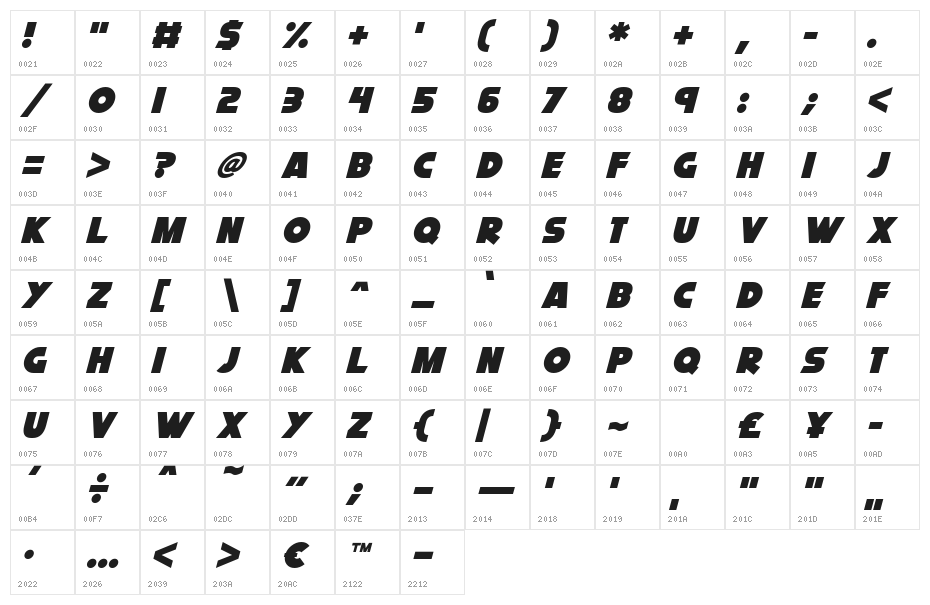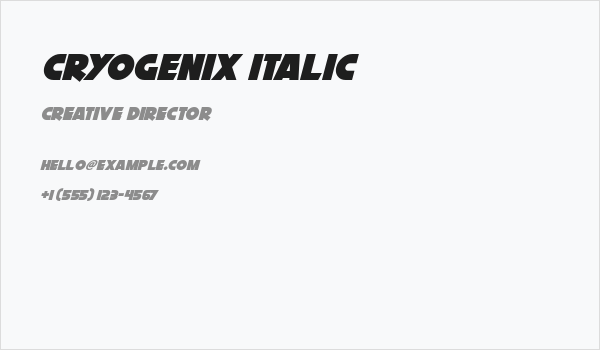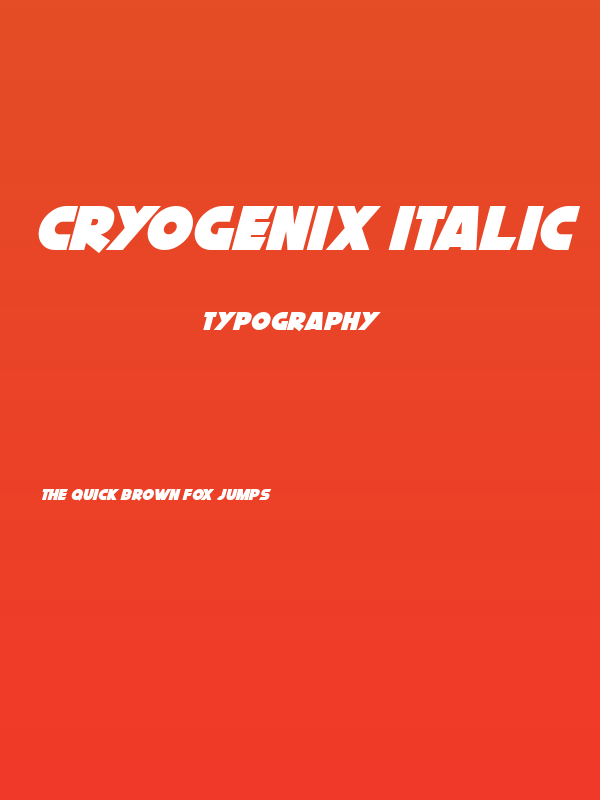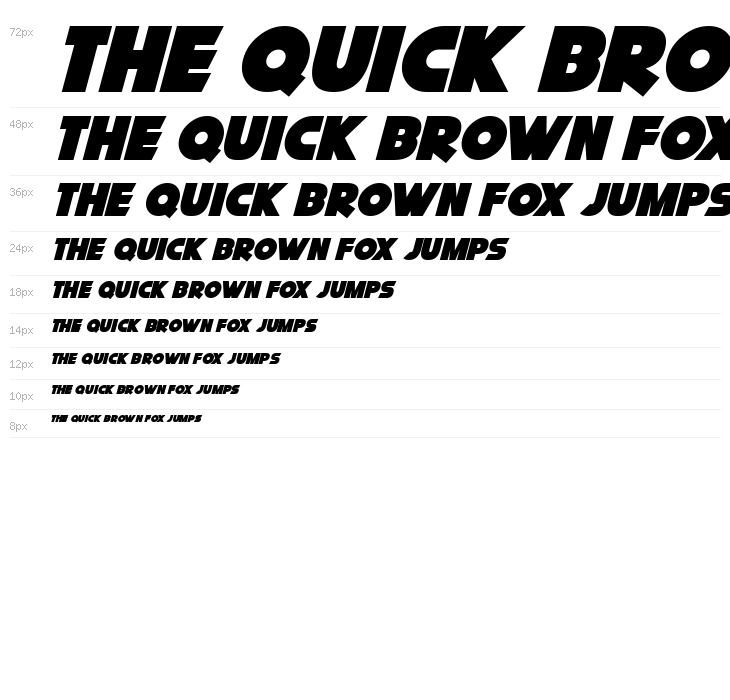
Cryogenix Italic Font
Cryogenix Italic Description
This font features a bold and dynamic style with a strong italic slant, giving it a sense of motion and energy. The characters are wide and robust, with a futuristic and modern aesthetic. The strokes are thick and consistent, providing a high contrast that enhances readability while maintaining a unique visual appeal. The design is clean and geometric, with sharp angles and smooth curves that create a sleek and polished look. This font is ideal for projects that require a bold statement and a contemporary feel.
| Proposed Projects | Ideal for branding, advertising, posters, and any project needing a modern, energetic look. |